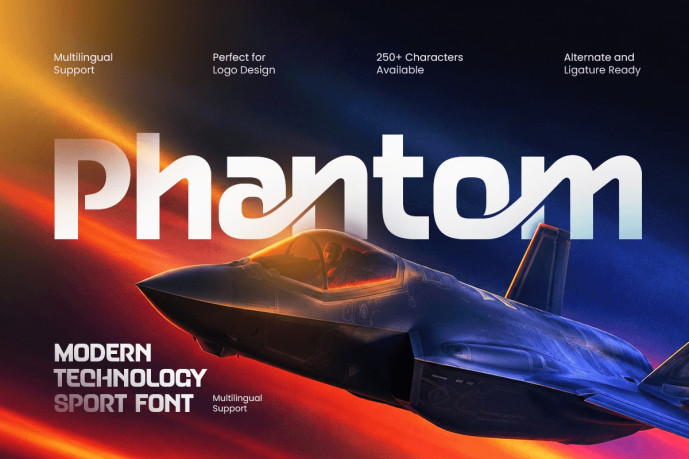
Phantom – Modern Technology Sport Font
Phantom – Modern Technology Sport Font is a futuristic sport font designed for technology branding, motorsport graphics, gaming identities, automotive logos, and high-performance visual communication. Inspired by advanced engineering, digital innovation, and competitive sports, Phantom combines sleek techno aesthetics with dynamic typography to create bold and memorable brand experiences.
Featuring sharp geometric letterforms, futuristic details, and performance-inspired styling, Phantom delivers a powerful sense of speed, precision, and innovation. The modern structure is optimized for logo design, display headlines, branding systems, and promotional graphics, making it an ideal choice for projects that demand a strong visual identity.
Whether you’re creating a motorsport logo, developing a technology startup brand, designing esports graphics, or producing automotive marketing materials, Phantom provides the modern typography needed to communicate power, movement, and cutting-edge design.
Phantom Font Features
Character Set: Uppercase, lowercase, numbers, symbols, and punctuation
Modern technology-inspired letterforms optimized for sport branding and logo design
OpenType features ready to enhance your design needs